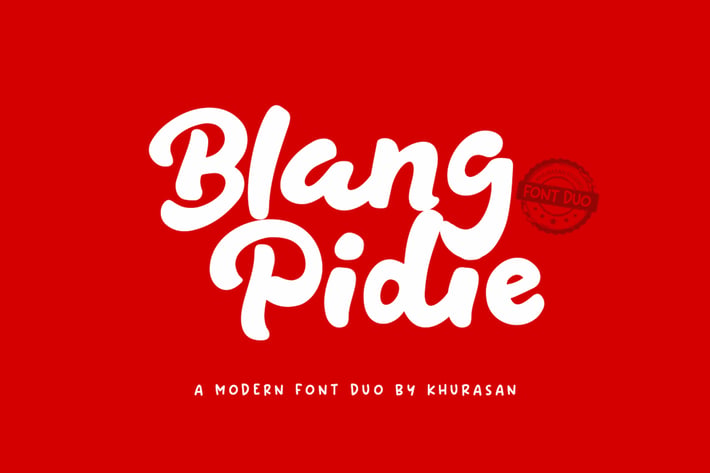
Blang Pidie Font Duo
khurasan
The Blang Pidie is a fun display and script font, fresh & modern style. Blang Pidie Font suitable for logo, branding, greeting card, poster and any design that you create.